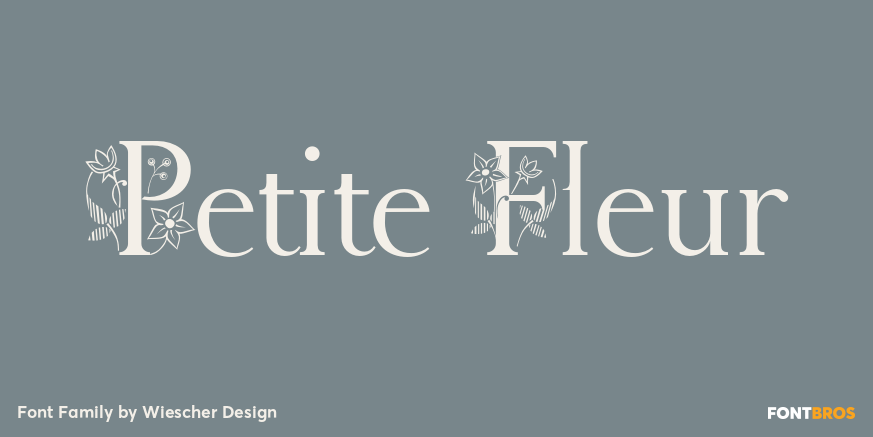
Petite Fleur
About Petite Fleur
Petite Fleur is a combination of very beautiful, very old French, engraved, flowery embellishments and the Capitals of my redesigned Royal Romain (Romain du Roi), the exclusive font of King Louis XIV. It is best used as initials only, but can be mixed…